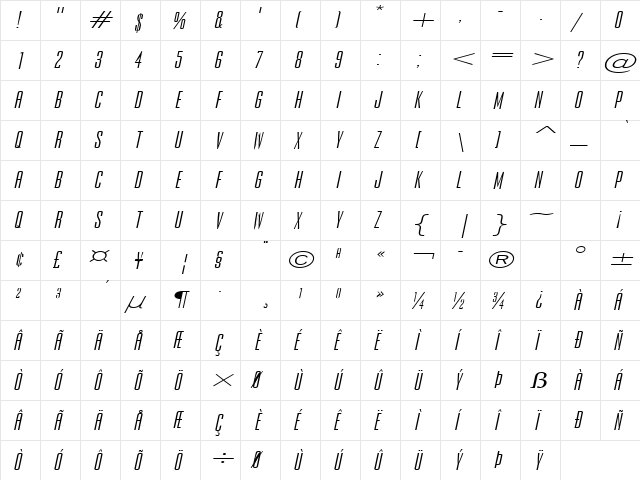
Expel Extended Italic
Design Context for Expel Extended Typeface
Expel Extended takes a measured approach to typography — its balanced proportions and neutral character make it a reliable workhorse for both digital and print work. The slanted form adds forward momentum and visual energy.